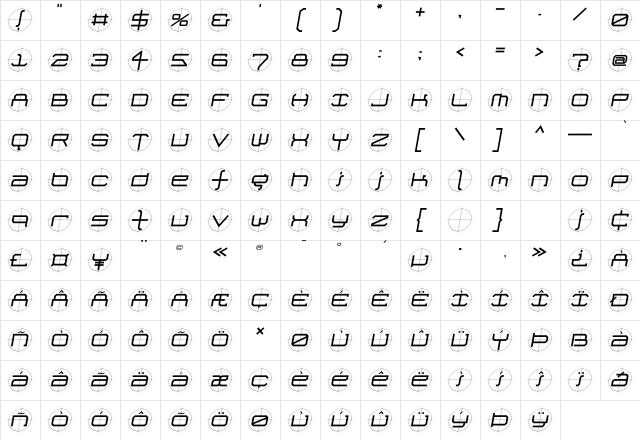
FutureKill MediumSkew
Style: MediumSkew
Copyright: Copr.1994. [T-26] Chicago, Illinois. Todd Munn - Designer.
FutureKill Family
FutureKill MediumSkew
Complete FutureKill MediumSkew glyph index. Displaying only characters natively supported by FutureKill MediumSkew font.
Design Context for FutureKill
FutureKill has a distinctly futuristic character, with geometric precision and clean angles that feel at home in technology, gaming, and sci-fi contexts.